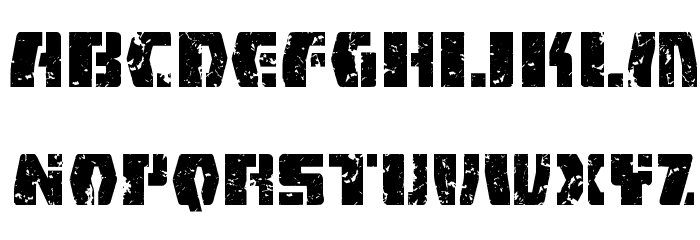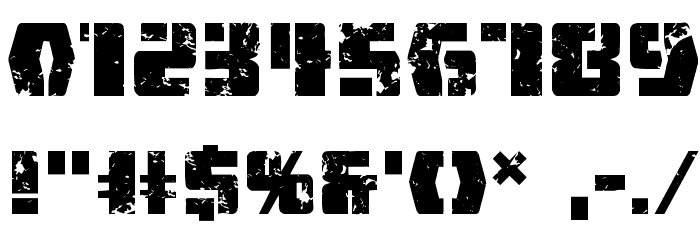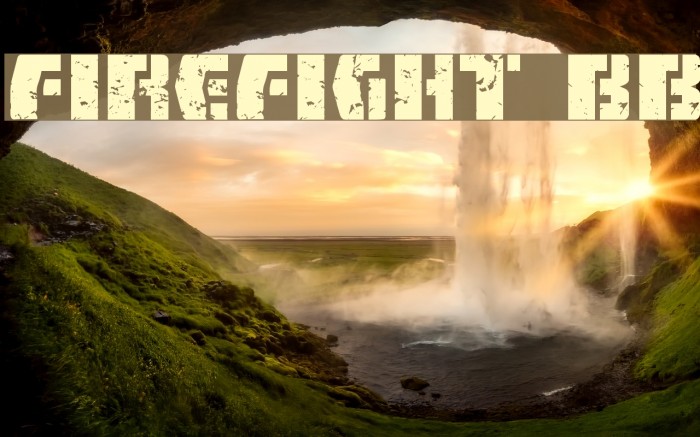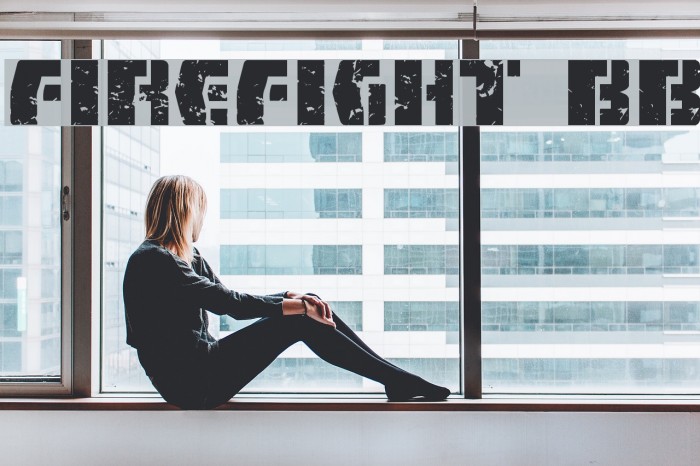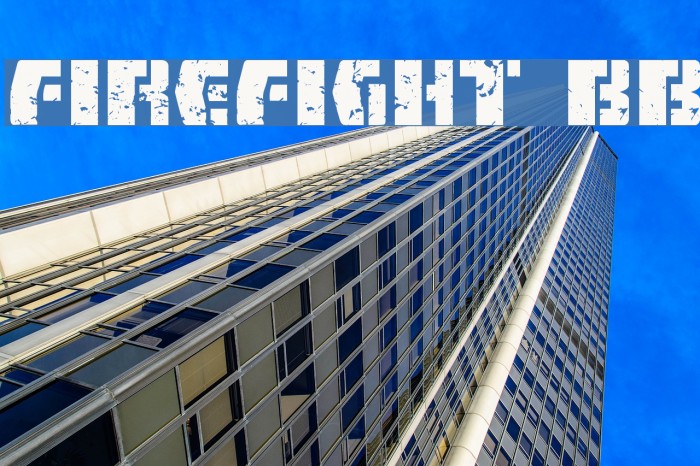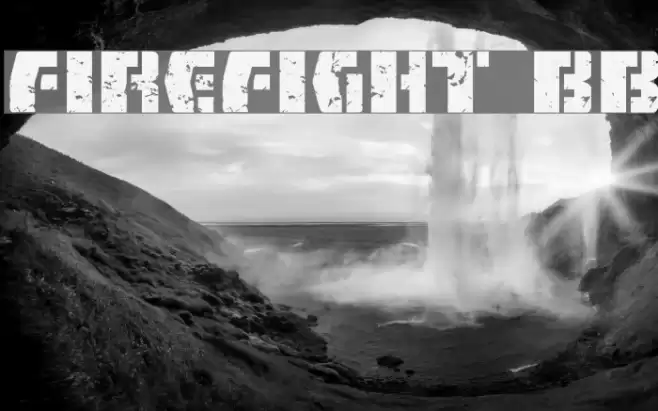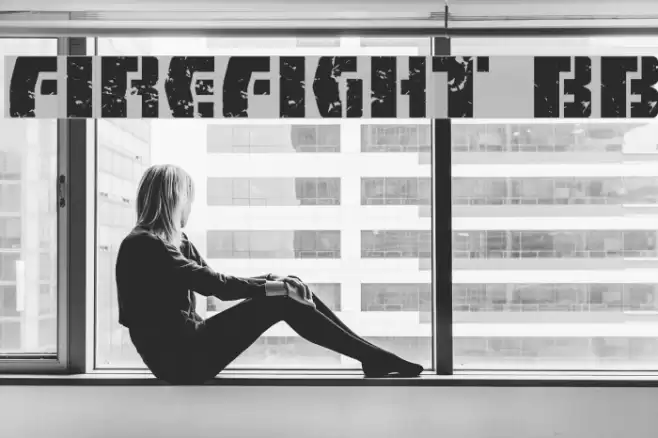
FireFight BB Font
This font features a bold, distressed style with a rugged, textured appearance. The characters are heavily stylized with a rough, worn-out look, giving them a gritty and urban feel. The uppercase and lowercase letters maintain a consistent weight, with sharp angles and a blocky structure. The numbers and special characters follow the same distressed pattern, adding to the overall cohesive design. This font's unique aesthetic makes it stand out, ideal for projects that require a strong, impactful visual presence.
- Proposed Projects: Ideal for posters, album covers, video game graphics, and urban-themed designs.
- Overall Style: Urban, Gritty, Distressed